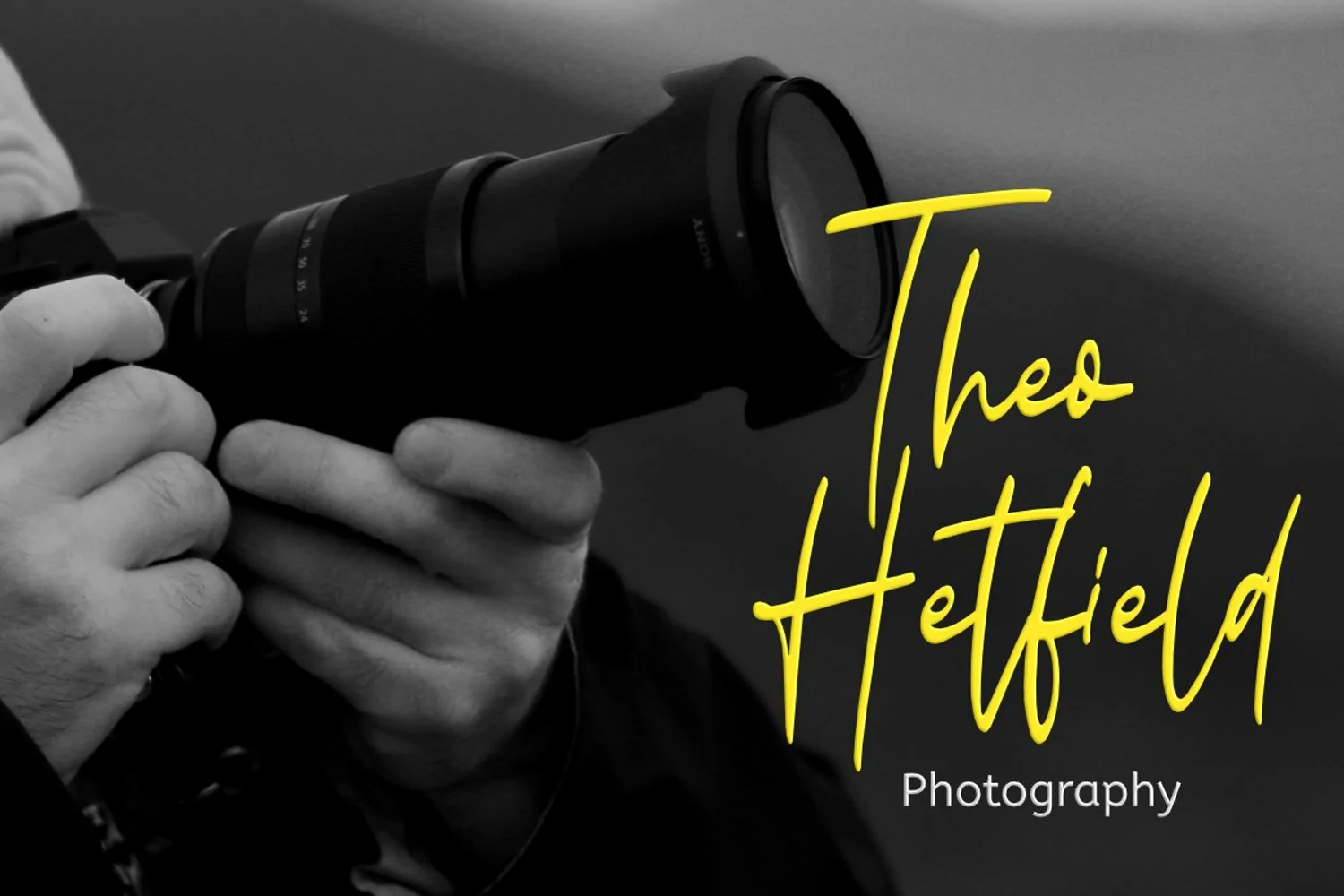
Jack Smith is a signature script font with a natural handwritten feel. This font is a good choice for branding and logotype design projects.
Jack Smith